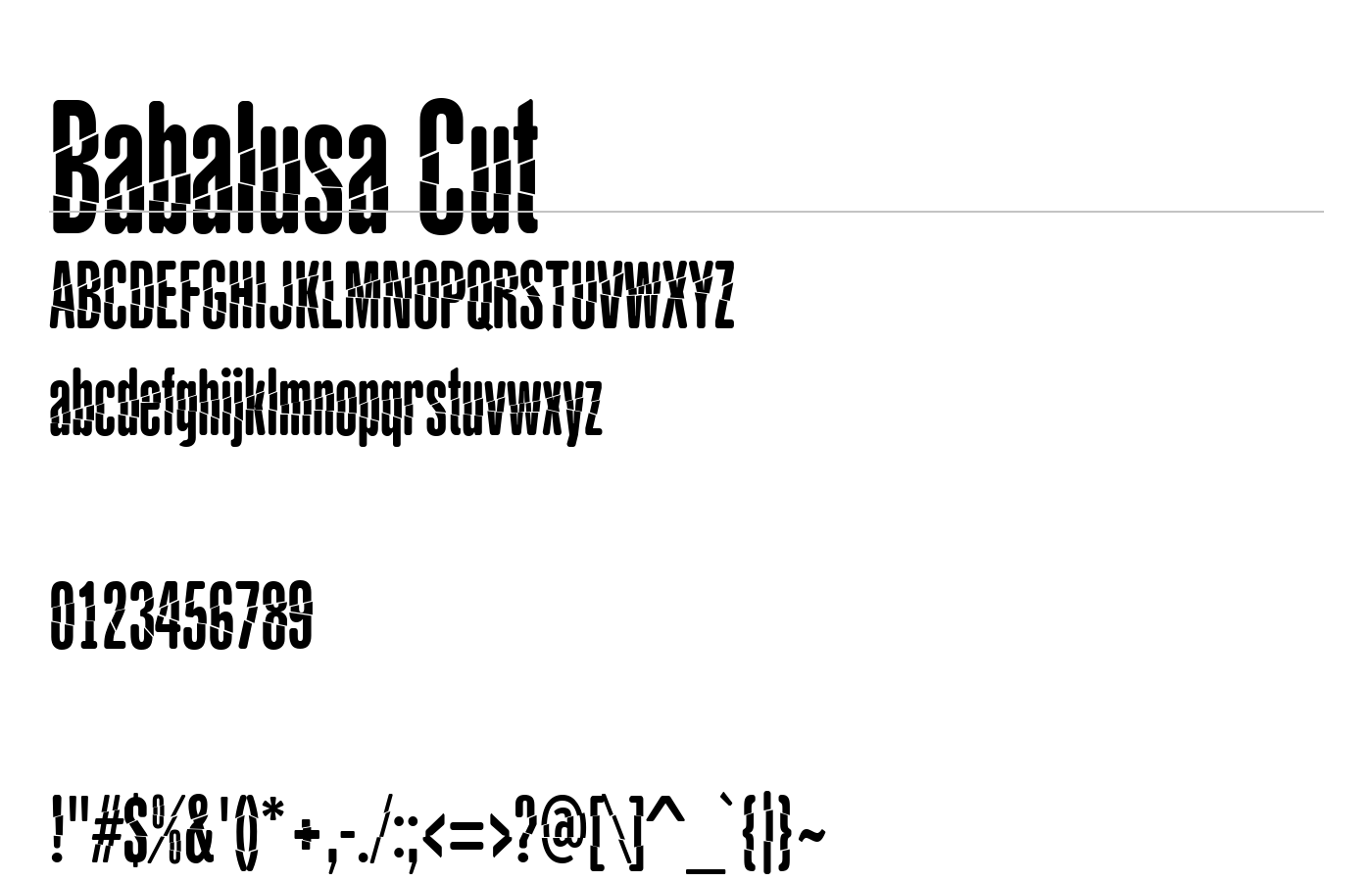
Babalusa Cut is a bold, condensed sans serif font with an edgy, modern feel created by striking diagonal cuts through each letterform. Its high contrast between thick strokes and the unexpected sliced details give it a dynamic, energetic personality, perfect for attention-grabbing headlines, logos, or branding that seeks a unique and daring look. This font works best in display uses where its distinctive style can stand out and make a strong visual impact.
Babalusa Cut Font
About Babalusa Cut Font
| Font family | Babalusa Cut Font |
| Designer | deFharo |